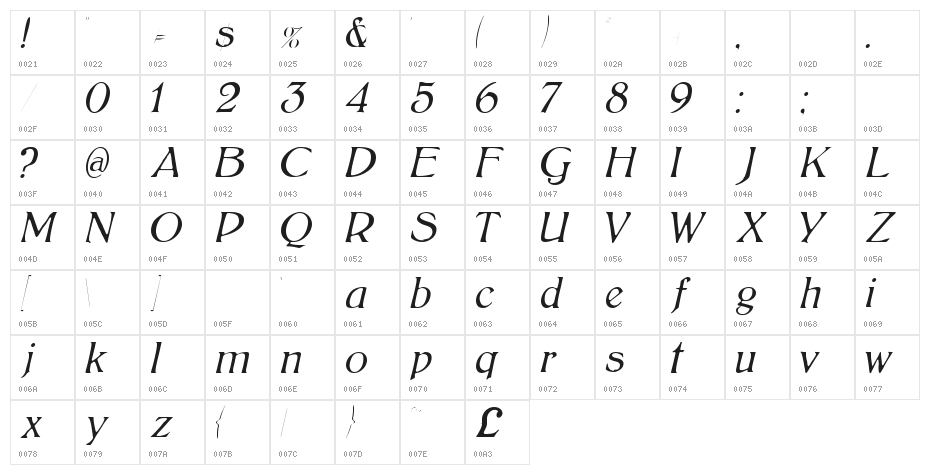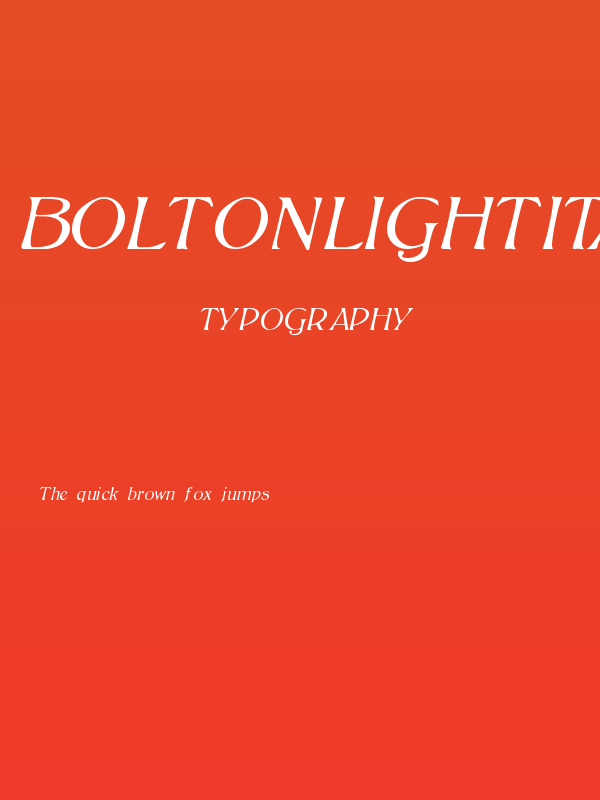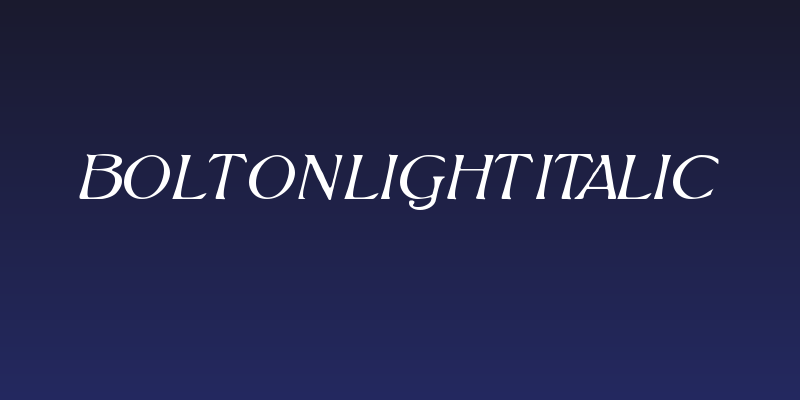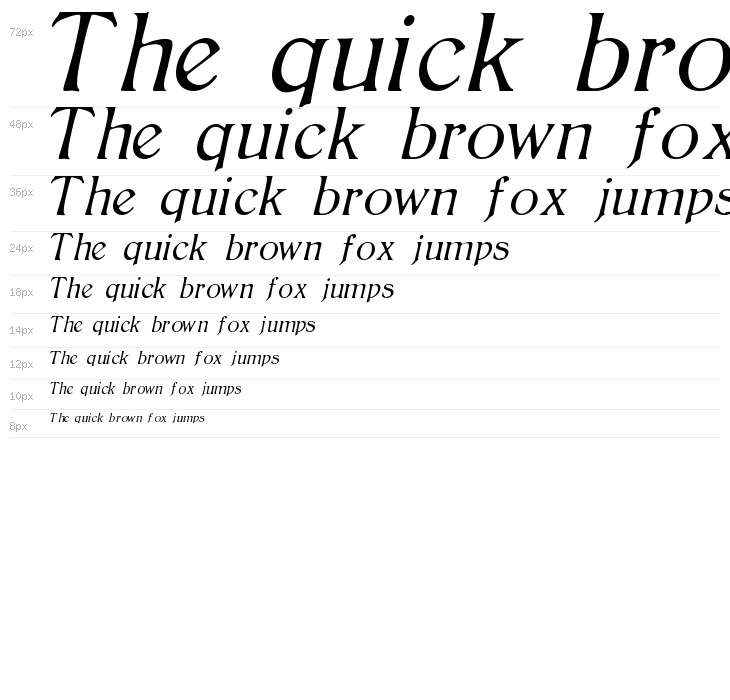
BoltonLightItalic Font
BoltonLightItalic Description
This font features an elegant and sophisticated design with a light and airy feel. The italic style adds a sense of movement and fluidity, making it ideal for conveying a sense of grace and refinement. The characters are well-proportioned with smooth curves and subtle serifs that enhance readability while maintaining a stylish appearance. The numerals are distinct and harmonize well with the alphabet, ensuring clarity in both text and numerical contexts. Special characters are thoughtfully designed, adding to the font's versatility.
| Proposed Projects | Ideal for wedding invitations, luxury branding, editorial design, and elegant packaging. |